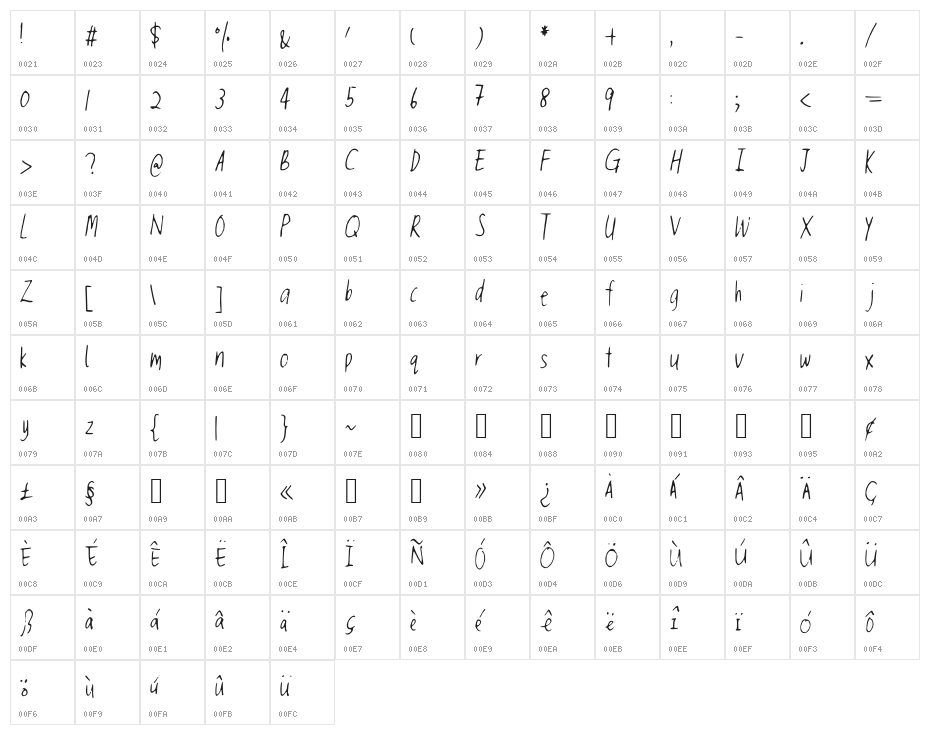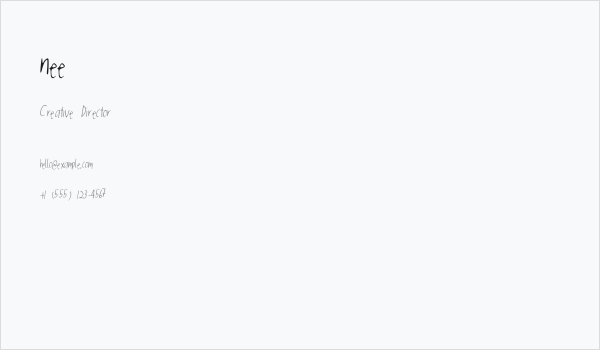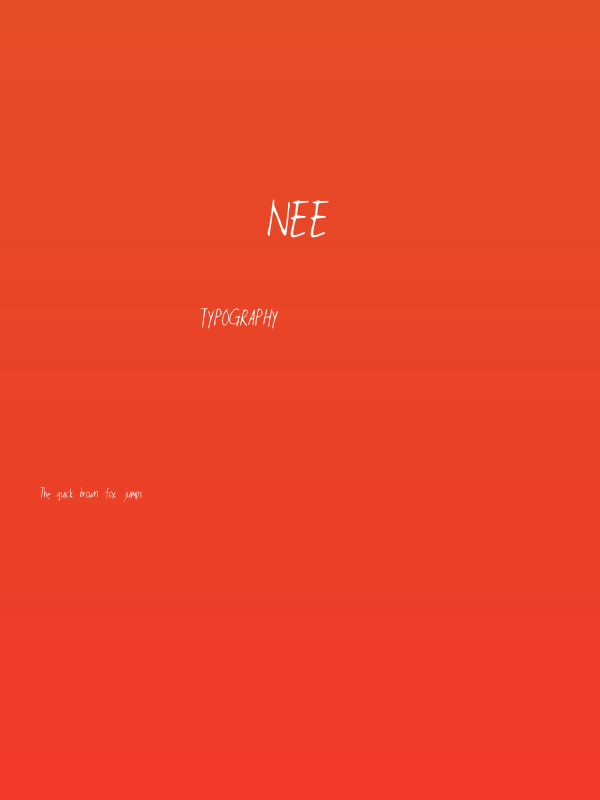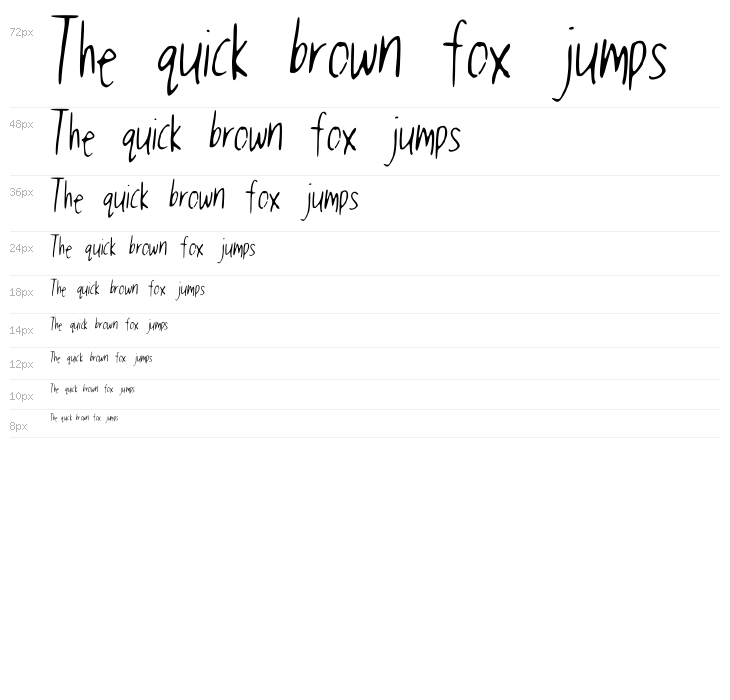
nee Font
nee Description
This font features a casual, handwritten style with a playful and informal appearance. The letters are slightly slanted, giving a dynamic and lively feel. The strokes vary in thickness, adding a natural and organic touch to the characters. The uppercase letters are bold and prominent, while the lowercase letters maintain a consistent flow. Numbers and special characters are designed to match the overall style, ensuring a cohesive look across all text elements. The font's unique character makes it suitable for projects that require a personal and approachable tone.
| Proposed Projects | Ideal for greeting cards, invitations, personal branding, and social media graphics. |